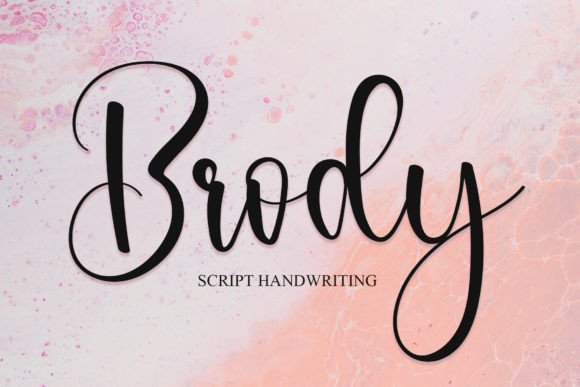
The Magical World of Brody Font: Elevate Your Designs with Elegance
I’ll never forget the time I was working on a DIY project for a client’s wedding invitation. I had the perfect design concept, but I was struggling to find a font that would add that extra touch of elegance. That’s when I stumbled upon Brody Font, and it completely transformed my design. In this article, I’ll share my experience with Brody Font, its features, and how to make the most of it in your designs.
An Honest Review of Brody Font
As a designer, I’m always on the lookout for fonts that can help me create stunning visuals. Brody Font has been a game-changer for me, and here’s what I love about it:
• ✨ Elegant and Refined: Brody Font has a magical handwritten quality that adds a touch of sophistication to any design.
• ✅ Versatile: Whether you’re creating Instagram posts, calligraphy scripts for DIY projects, or elegant wedding invitations, Brody Font fits the bill.
• 💫 Unique Character: The font has a distinct personality that sets it apart from other handwritten fonts.
Of course, no font is perfect, and here are a few quirks to keep in mind:
• 🤔 Limited Use in Body Text: While Brody Font is stunning in headings and titles, it may not be the best choice for body text due to its elegant, yet somewhat ornate nature.
• ⚠️ Glyph Limitations: Some users have reported that the font could benefit from more glyphs, especially for non-English languages.
The Story Behind Brody Font
Brody Font was created with the intention of bringing a touch of magic to your designs. Its designer drew inspiration from classic calligraphy and elegant handwriting, with a goal of creating a font that would be both refined and unique. Whether you’re a designer, crafter, or creative hobbyist, Brody Font is sure to become a favorite in your collection.
Q: What is Brody Font best used for?
A: Brody Font is ideal for headings, titles, and elegant text elements in designs like wedding invitations, DIY projects, social media posts, and luxury branding.
Q: Is Brody Font available in multiple languages?
A: Brody Font may not have extensive language support, but it can be used for English and some other languages. Be sure to check the font’s character set to ensure it meets your needs.